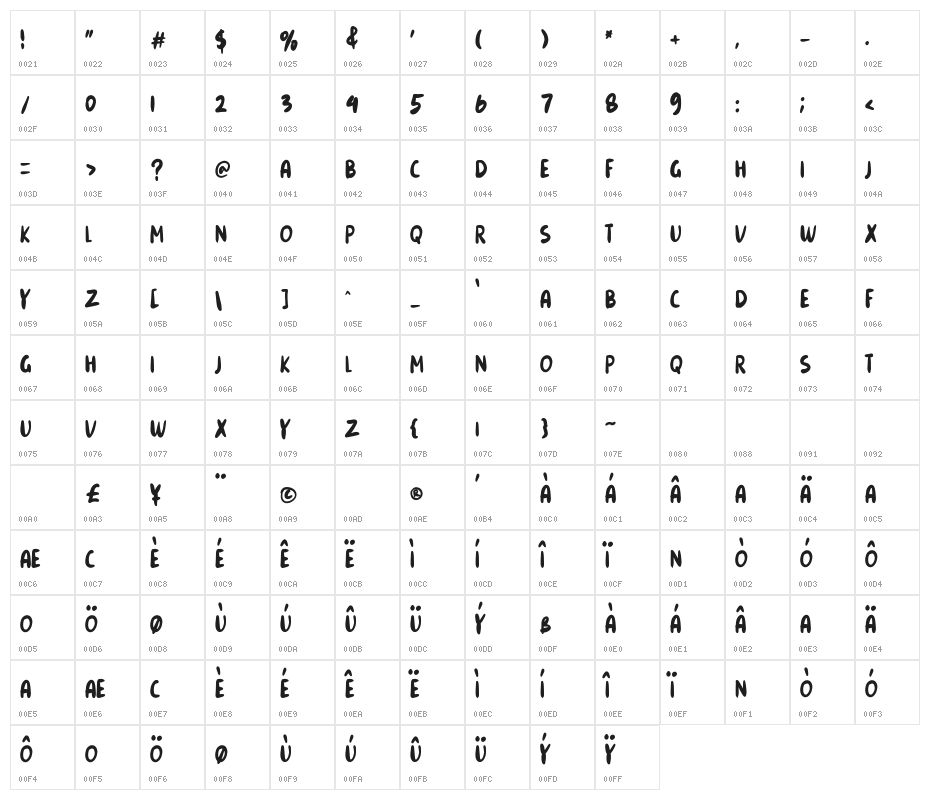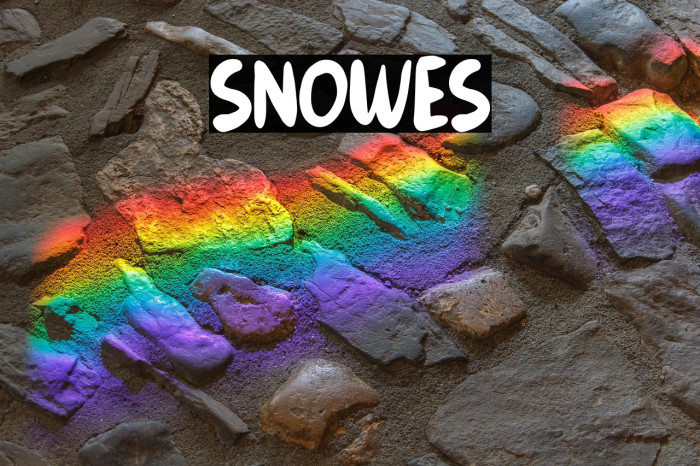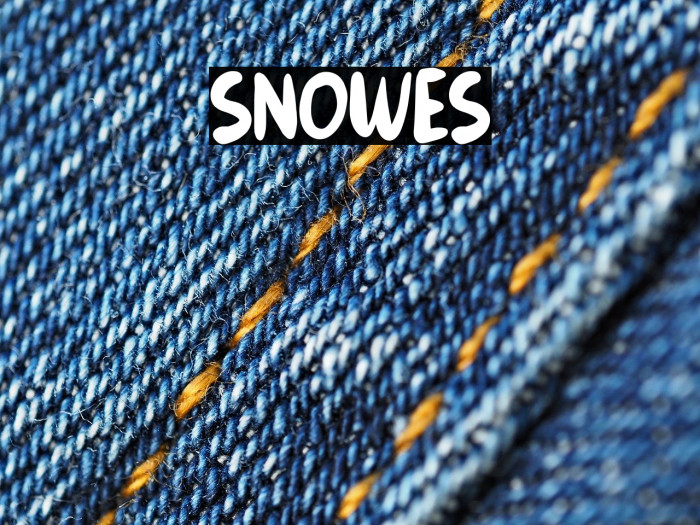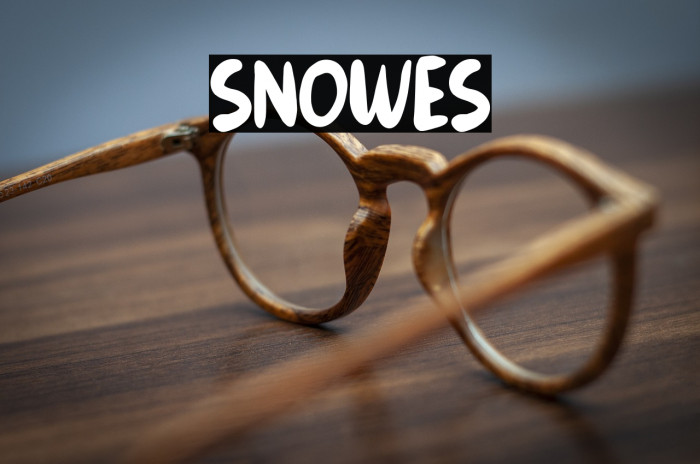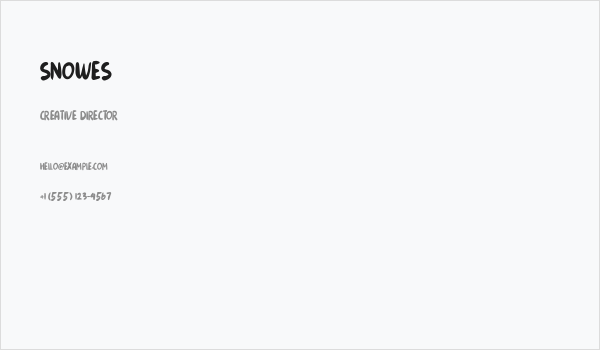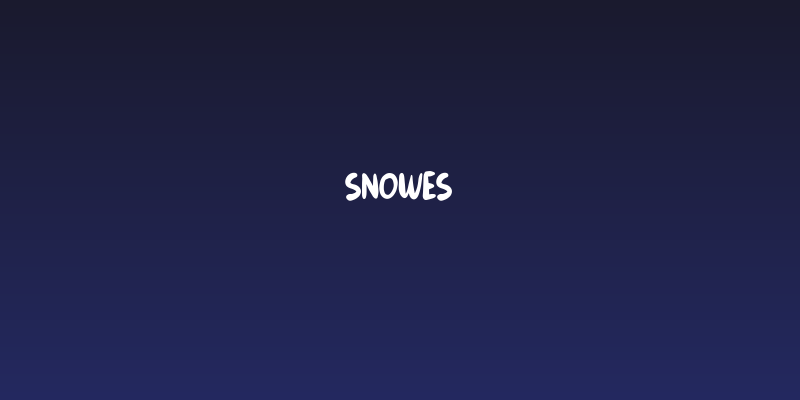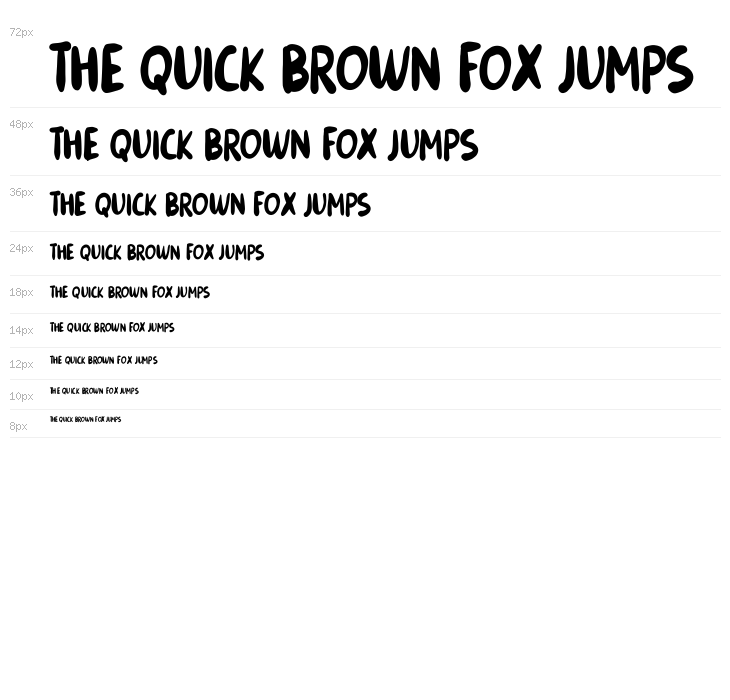
Snowes Font
Snowes Description
This font features a playful and bold handwritten style, characterized by its rounded and slightly irregular letterforms. The strokes are thick and consistent, giving it a strong presence on the page. The uppercase and lowercase letters maintain a cohesive look, with a casual and friendly vibe. The numbers and special characters follow the same design principles, ensuring uniformity across all glyphs. This font is ideal for projects that require a personal touch, such as invitations, greeting cards, or playful branding.
| Overall Style | Playful |
| Proposed Projects | Ideal for invitations, greeting cards, playful branding, and children's book covers. |